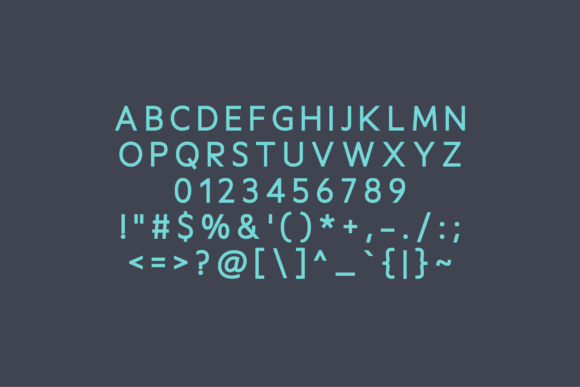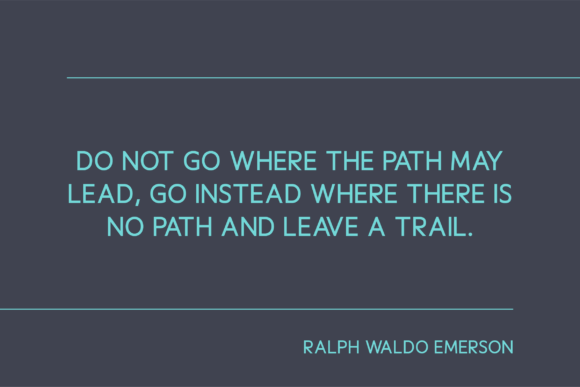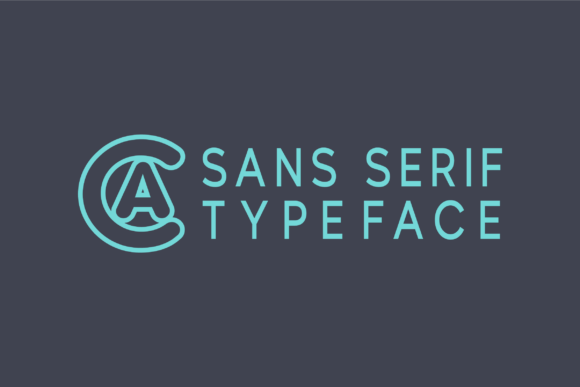
Introducing Culturan: The Ultimate Modern Sans Serif Typeface
In the world of typography, a good font can make all the difference in the success of a design project. Whether you’re a graphic designer, a crafty DIY enthusiast, or a marketing professional, having the right typeface can elevate your work from ordinary to extraordinary. That’s why we’re excited to introduce Culturan, a modern, classy sans serif typeface that’s perfect for a wide range of applications.
What is Culturan?
Culturan is a sleek and sophisticated sans serif typeface that features upper characters, numbers 0-9, and a range of punctuation and symbols. Its clean lines, precise curves, and balanced proportions make it an extremely versatile font that’s suitable for various design projects. Whether you’re looking to create a stunning logo, a beautiful wedding invitation, or a compelling advertisement, Culturan is the perfect choice.
Key Features of Culturan
- Upper Characters: Culturan features a full set of upper characters, ensuring that you have all the letters you need to create stunning headlines, titles, and captions.
- Numbers and Punctuation: The font includes numbers 0-9 and a range of punctuation and symbols, making it perfect for creating detailed designs and layouts.
- Sans Serif Design: Culturan’s sans serif design gives it a modern and clean look that’s perfect for contemporary design projects.
- Versatility: Culturan is an extremely versatile font that’s suitable for various design applications, including logos, weddings, invitations, quotes, advertisements, print, magazines, and more!
Why Choose Culturan?
So, why should you choose Culturan for your next design project? Here are just a few reasons:
- Modern and Classy: Culturan’s modern and classy design makes it perfect for projects that require a sophisticated look and feel.
- Easily Readable: The font’s clean lines and balanced proportions ensure that it’s easily readable, even at small sizes.
- Highly Versatile: Culturan’s versatility means that you can use it for a wide range of design projects, from logos and invitations to advertisements and magazines.
- Time-Saving: With Culturan, you can save time and effort by using a single font for multiple design projects.
Design Applications for Culturan
Culturan is perfect for a wide range of design applications, including:
- Logos: Create stunning logos that showcase your brand’s personality and style.
- Weddings and Invitations: Use Culturan to create beautiful wedding invitations, save-the-date cards, and other stationery.
- Advertisements: Make your advertisements stand out with Culturan’s modern and classy design.
- Print and Magazines: Use Culturan to create visually appealing print materials, such as brochures, flyers, and magazine layouts.
- Quotes and Posters: Create inspiring quotes and posters that showcase Culturan’s clean lines and balanced proportions.